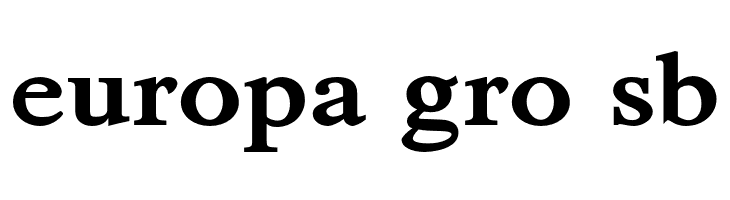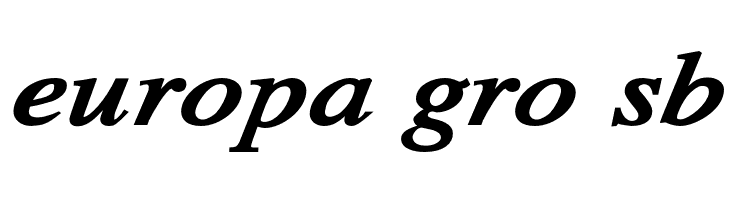
A bold serif font with strong, classic features and modern versatility.
A bold, italic serif font with a classic and authoritative style.
An elegant italic serif font with smooth, flowing lines and a classic style.